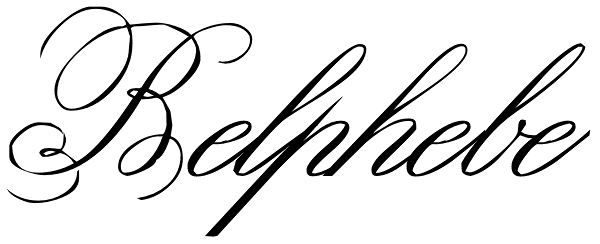
Belphebe
Someone recently pointed out that May and June are the wedding season months, and that while we have some excellent fonts for non-traditional weddings (celtic and renaissance styles work well), we don't have a straightforward, elegant engraver style...